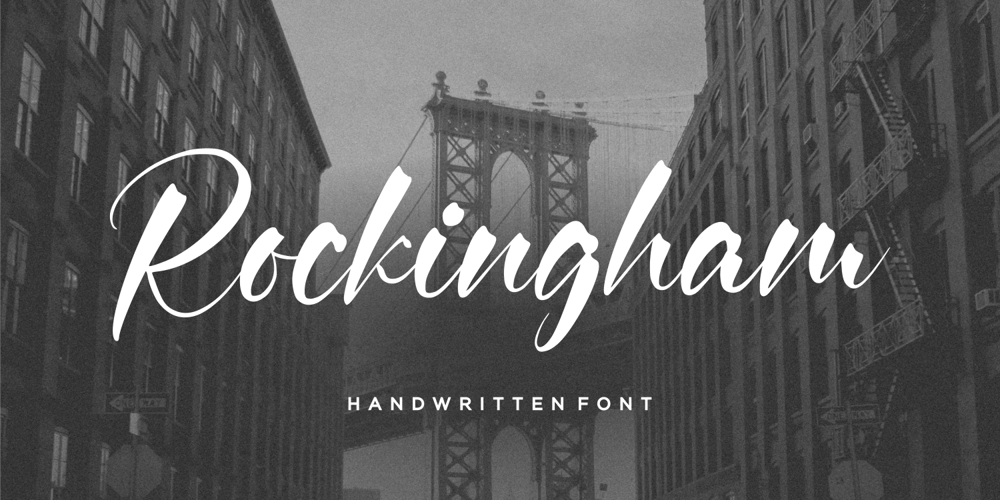
Rockingham Font Family was designed by Andre Bima Falah Rabbani and published by Atharuah Studios. Rockingham contains 1 styles and family package options. Introducing Rockingham! A handwritten font designed with balance to create a stunning typeface.It’s the perfect choice for personal branding & logo projects, product packaging, handwritten quotes, editorial design, and more.What’s Included:Rockingham comes with a single font file that includes uppercase, lowercase, numbers, punctuation, and multilingual support.That’s it! I hope you enjoy it.You can also say hello to me on Instagram: https://www.instagram.com/atharuah_Thank You!